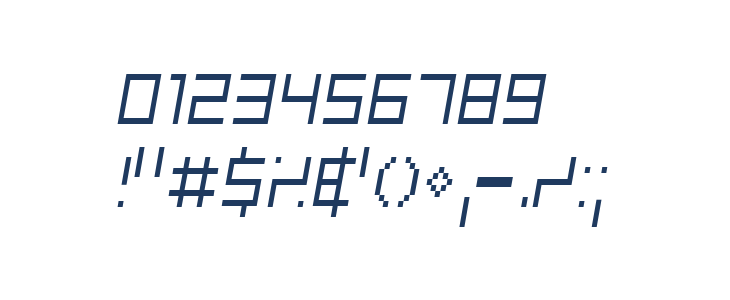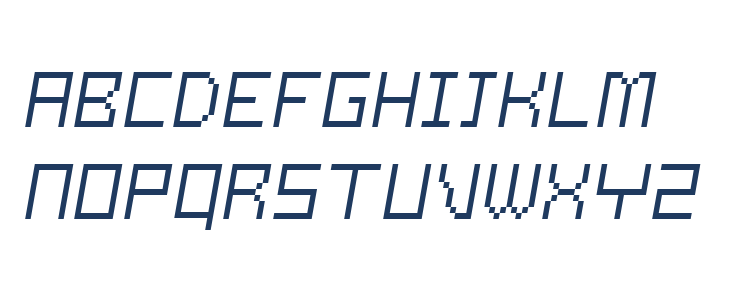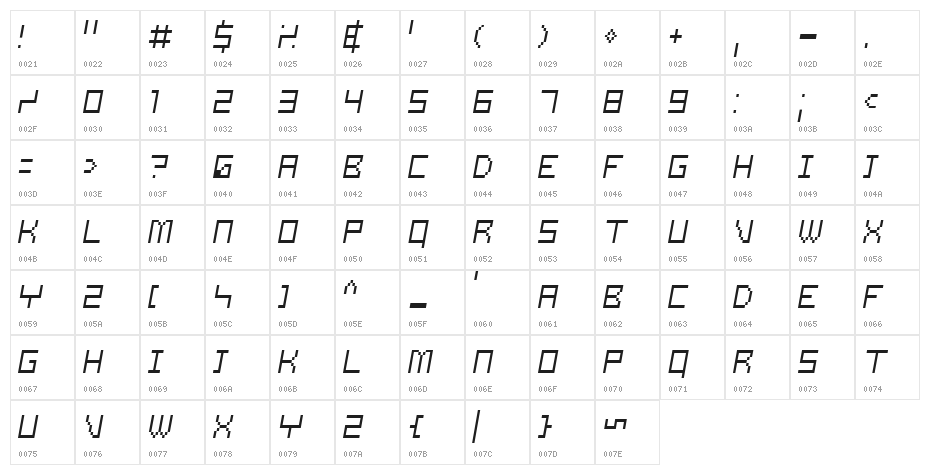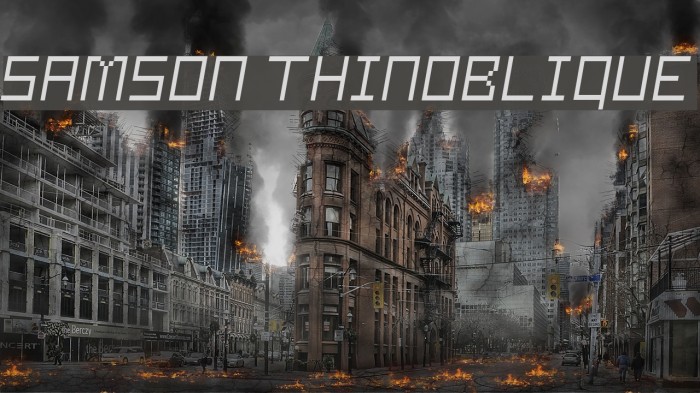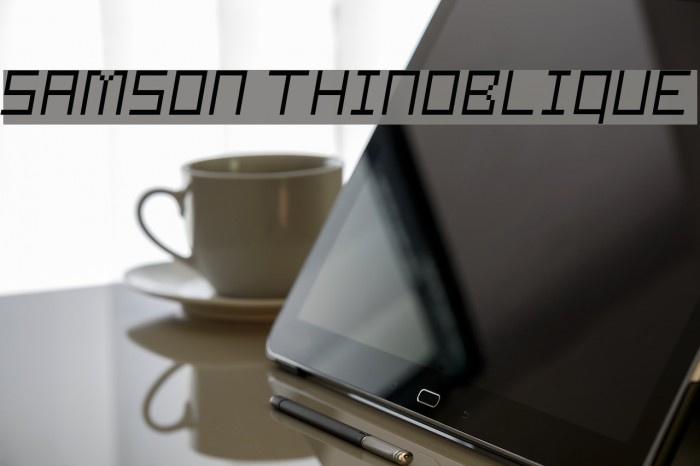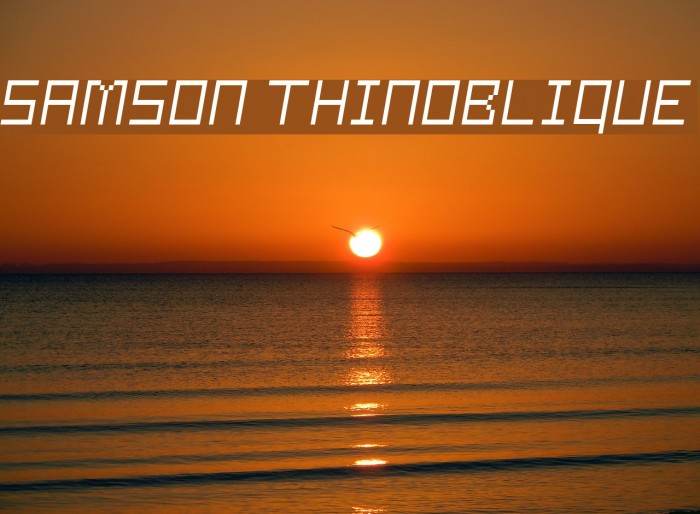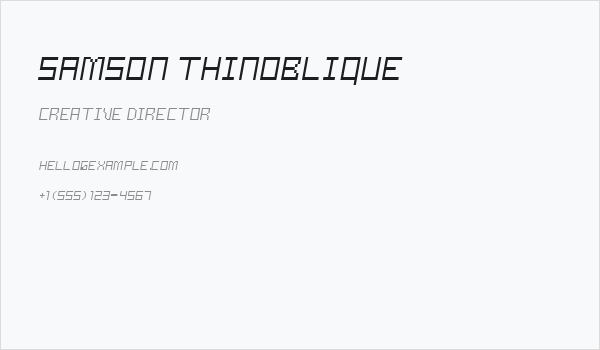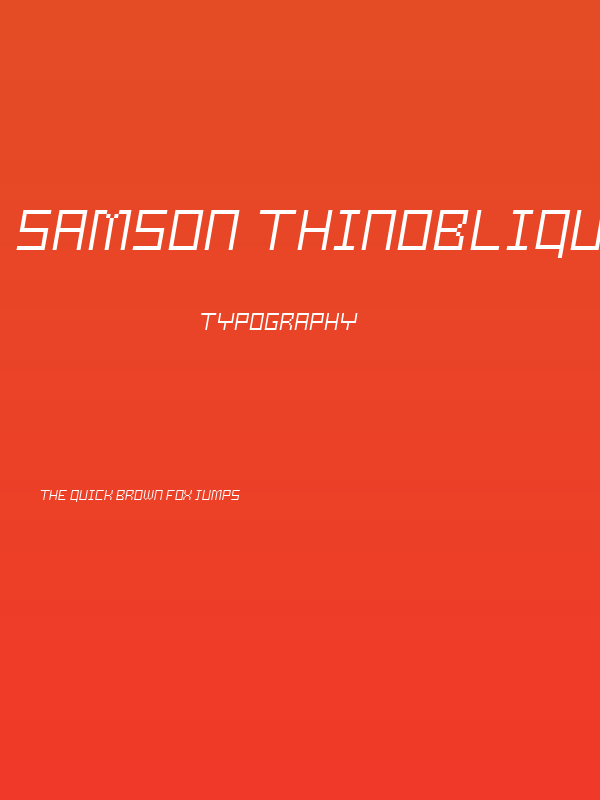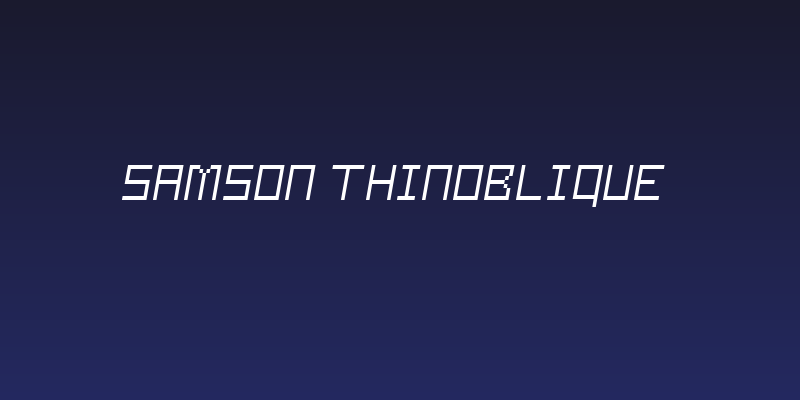
Samson ThinOblique Font
Samson ThinOblique Description
This font features a distinct pixelated style with a modern and digital appearance. The characters are constructed with a grid-like pattern, giving them a unique, retro-futuristic look. The letters are slightly oblique, adding a sense of motion and dynamism. The uppercase and lowercase letters maintain a consistent height, while the numerals and special characters are designed to match the overall aesthetic. This font is ideal for projects that require a tech-savvy or digital theme, such as video game graphics, tech branding, or digital art.
| Use Case | Logos, Headlines, Digital Art |
| Proposed Projects | Ideal for video game graphics, tech branding, digital art, and futuristic designs. |